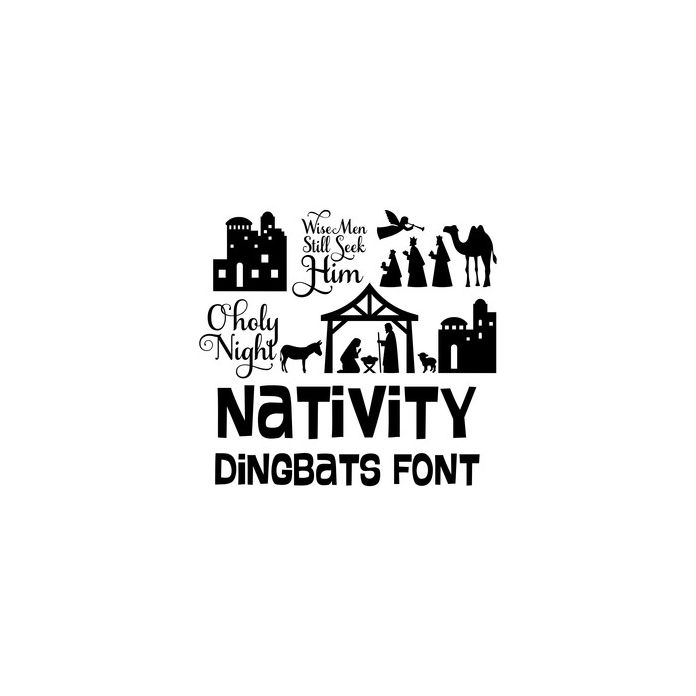
This cute dingbat font includes 26 nativity icons and phrases that you can type + cut. Make adorable nativity themed projects with this fun font. For ideas and inspiration visit www.loriwhitlock.com and www.facebook.com/lori.whitlock.studio. For Lori's video tutorials visit www.youtube.com/loriwhitlock. For a full tutorials list visit www.loriwhitlock.com/blog/tutorials.